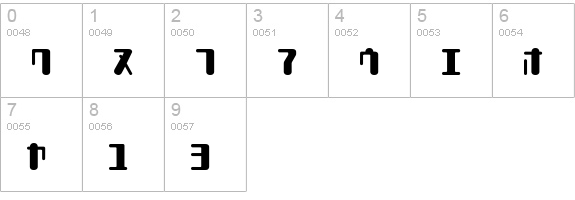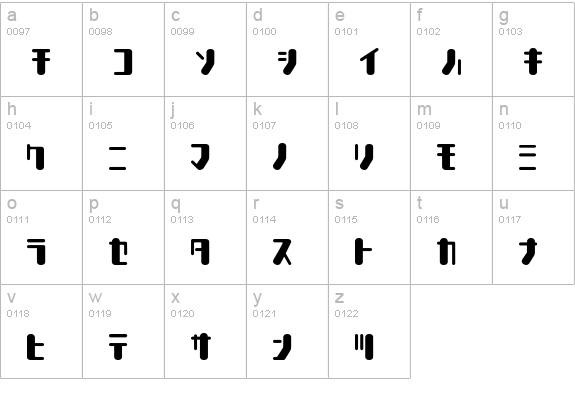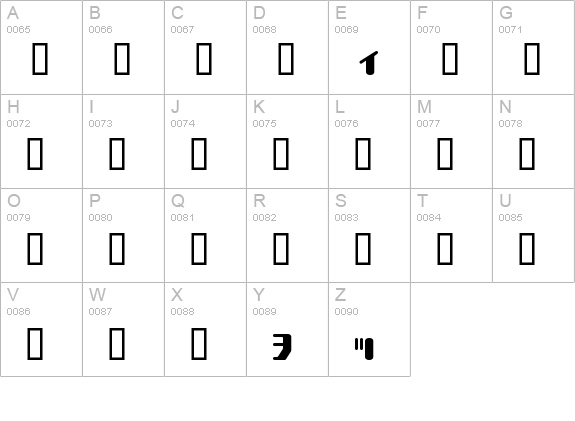
TYPEOUT2097KAT Font Details
Introducing the mesmerizing TYPEOUT2097KAT font - a true epitome of creativity and artistic flair! This unique typeface effortlessly combines futuristic elements with a touch of elegance, making it a must-have for any design enthusiast. With its sleek and dynamic letterforms, TYPEOUT2097KAT is capable of instantly capturing attention and creating a lasting impact. Whether used in headlines, logos, or any other design project, this font is guaranteed to convey a sense of modernity and sophistication. But what makes TYPEOUT2097KAT even more impressive is that it is available for free! That's right, this extraordinary font can be freely downloaded at FontsMarket.com, allowing designers, creatives, and typography enthusiasts to unleash their imagination without any financial constraints. Whether you're working on a personal project or a client assignment, TYPEOUT2097KAT will undoubtedly elevate your designs to new heights. Its versatility knows no bounds, as it seamlessly adapts to various design styles and themes. From tech-oriented graphics to minimalist compositions, this font effortlessly complements any visual narrative. The meticulously crafted letterforms of TYPEOUT2097KAT ensure optimal legibility and readability, even at smaller sizes. Its well-balanced proportions and distinct character details make it a joy to work with, guaranteeing a smooth and hassle-free design process. So why wait? Embark on a typographic adventure with TYPEOUT2097KAT and experience the power of this stunning font firsthand. Download it for free at FontsMarket.com and let your creativity soar to new heights. Embrace the future of typography with TYPEOUT2097KAT - the perfect fusion of innovation, elegance, and accessibility.